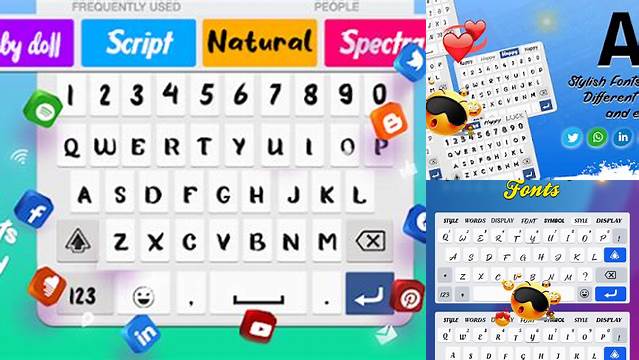
Hey guys! Are you tired of the same old boring keyboard font on your Android device? Want to spice things up and give your phone a fresh, new look? You've come to the right place! In this article, we're diving deep into the world of stylish keyboard fonts for Android, and the best part? You can download them for free! We'll explore why changing your keyboard font can be a game-changer, how to find the perfect font for your style, and the steps to install it. Get ready to transform your typing experience and make your phone truly reflect your personality! So, let's get started and explore the exciting world of custom keyboard fonts!
Let's talk about why changing your keyboard font is more than just a cosmetic upgrade. Your keyboard is something you interact with constantly, so making it visually appealing can have a significant impact on your overall experience. A stylish keyboard font can make typing more enjoyable and less of a chore. Think about it β if you love the way your keyboard looks, you're more likely to enjoy using it. Itβs like getting a new pair of shoes that make you excited to go for a walk!
Beyond the enjoyment factor, a unique font can also help you express your personal style. Your phone is an extension of yourself, and customizing your keyboard font is a fantastic way to add a personal touch. Whether you're into sleek and modern designs, playful and quirky styles, or elegant and classic looks, there's a font out there that perfectly matches your vibe. Imagine your friends noticing your cool new font and asking where you got it β you'll be the trendsetter in your group!
Another great reason to switch up your keyboard font is to improve readability. Some default fonts can be a bit bland or difficult to read, especially in low-light conditions. By choosing a clear and legible font, you can reduce eye strain and make typing more comfortable. This is especially important if you spend a lot of time writing messages, emails, or documents on your phone. A well-chosen font can significantly enhance your typing speed and accuracy. So, changing your keyboard font is not just about aesthetics; it's also about functionality and comfort.
Now that we've established why changing your keyboard font is a great idea, let's talk about how to find the perfect font for your style. With so many options available, it can feel a bit overwhelming, but don't worry, we're here to guide you through the process. The first step is to consider your personal preferences. What kind of aesthetic do you gravitate towards? Are you drawn to minimalist designs, or do you prefer something more elaborate? Do you like bold and chunky fonts, or are you more into delicate and elegant ones? Thinking about your style will help you narrow down your options and make the selection process easier.
When browsing fonts, pay attention to the font's characteristics and how they align with your personal style. Consider the font's weight, width, and overall design. Is it a sans-serif font, which tends to look clean and modern, or a serif font, which has a more traditional and formal feel? Does the font have decorative elements, like swirls or flourishes? Also, think about how the font will look on your keyboard layout. Some fonts may look great in isolation but become cluttered or difficult to read when used with the keyboard's keys and symbols. It's a good idea to preview the font in a keyboard setting before committing to it. Many keyboard apps offer a preview feature that allows you to see how the font will look on your keyboard. This will help you make an informed decision and choose a font that you'll love using every day.
Okay, you've found the perfect font β awesome! Now, let's walk through how to download and install it on your Android device. The process can vary slightly depending on the keyboard app you're using, but the general steps are pretty similar. First, you'll need to download a keyboard app that supports custom fonts. As we mentioned earlier, Gboard, SwiftKey, and FancyKey are excellent options. If you don't already have one of these apps installed, head over to the Google Play Store and download your preferred app. Once the app is installed, open it and follow the on-screen instructions to set it as your default keyboard. This usually involves going to your device's settings and selecting the app as your default input method.
Next, you'll need to find and download the font file. If you're using a keyboard app with a built-in font store, you can browse the available fonts and download the one you want directly from the app. If you've downloaded a font from a website like DaFont or Google Fonts, you'll typically receive a ZIP file containing the font file in either TTF or OTF format. These are the standard font file formats. You'll need to extract the font file from the ZIP archive. You can use a file manager app, such as Files by Google or Solid Explorer, to extract the file. Simply navigate to the ZIP file, tap on it, and select the option to extract the contents.
Once you have the font file, you'll need to import it into your keyboard app. This is where the process can differ slightly depending on the app. In Gboard, for example, you can go to the app's settings, select "Themes," and then choose the option to add a custom font. You'll then be prompted to select the font file from your device's storage. In other apps, the option to import fonts may be located in a different section of the settings menu, such as "Font Settings" or "Customization." Refer to your keyboard app's documentation or help resources for specific instructions on how to import fonts. After you've imported the font, you should be able to select it as your keyboard font and start enjoying your new typing experience! It's that easy. Experiment with different fonts until you find the ones that perfectly match your style and make your keyboard a joy to use.
Now it's your turn to dive in and start experimenting with different fonts. Download a new keyboard app, browse font websites, and try out various styles until you find the ones you love. Don't be afraid to get creative and mix things up. Your keyboard is a blank canvas, so let your personality shine through! With the right font, your typing experience will be more enjoyable, more expressive, and more uniquely you. So go ahead, transform your keyboard and make your Android device truly your own!